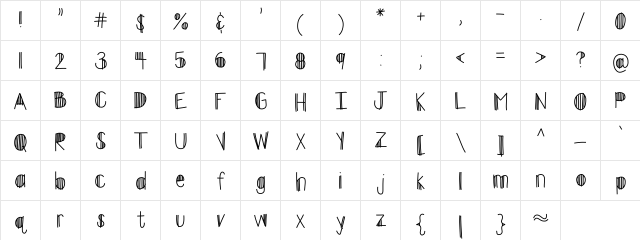
HomegirlJailbird Medium
Design Context for HomegirlJailbird Typeface
HomegirlJailbird is a composed and adaptable typeface that performs quietly and consistently across a wide range of design contexts.